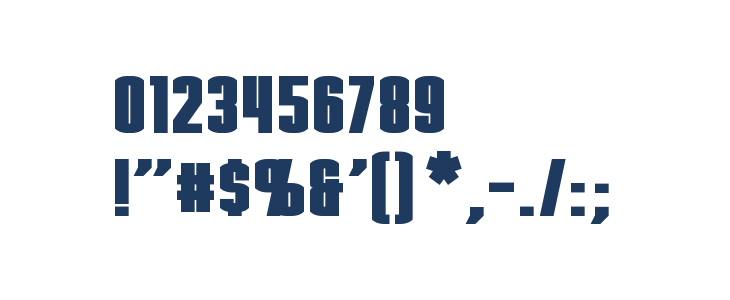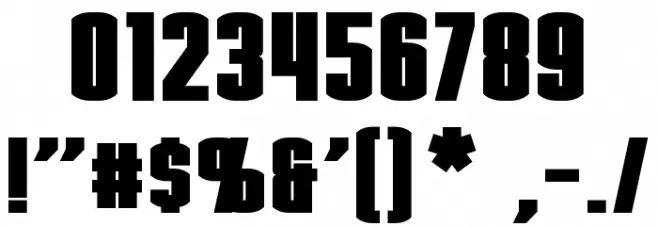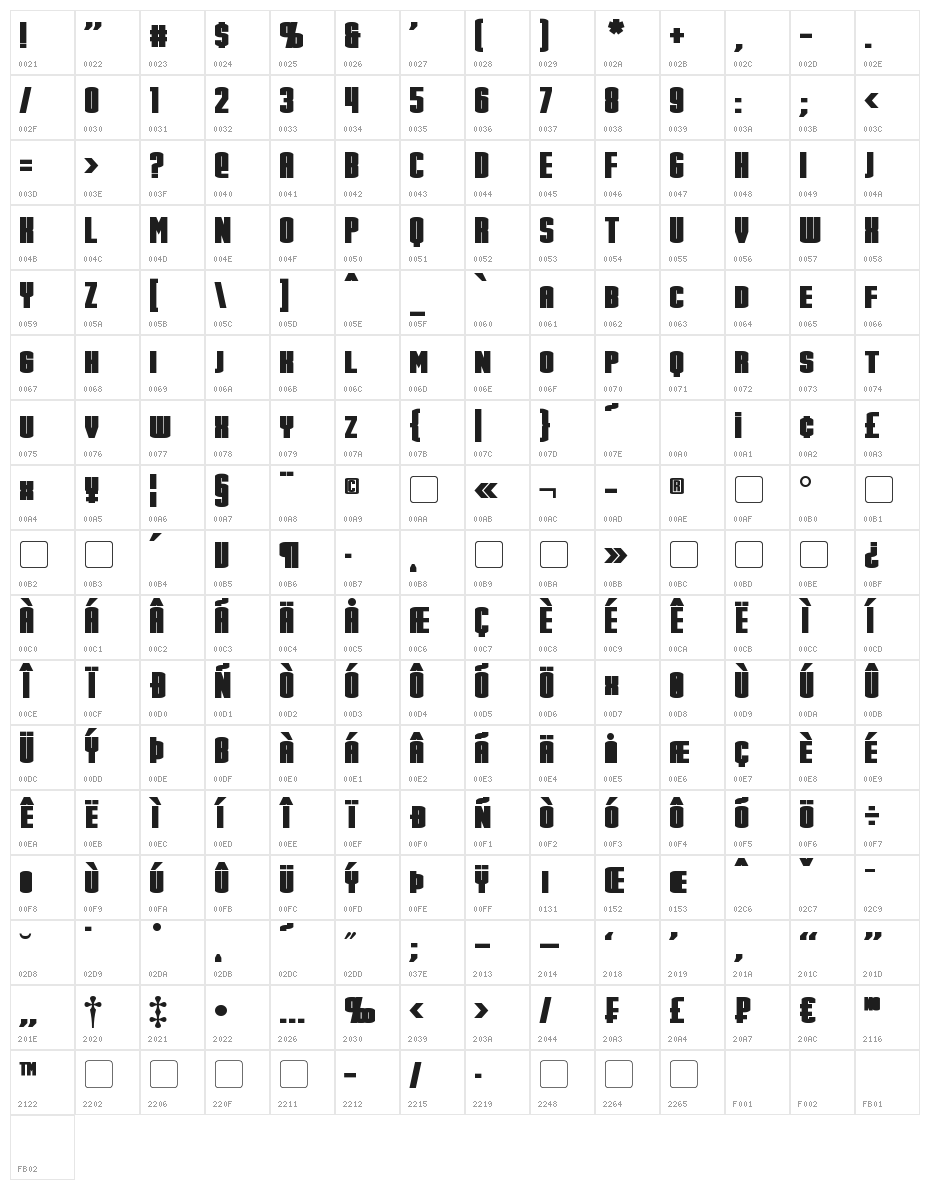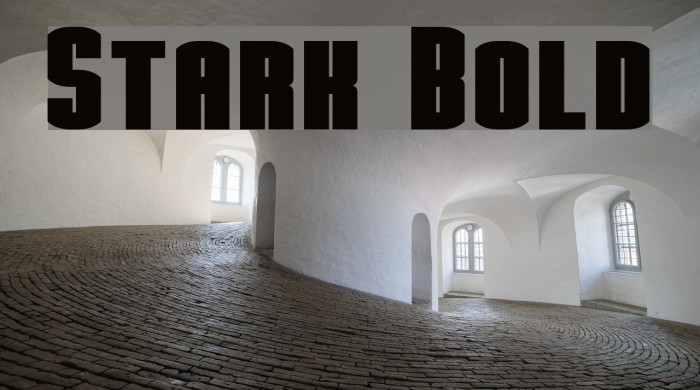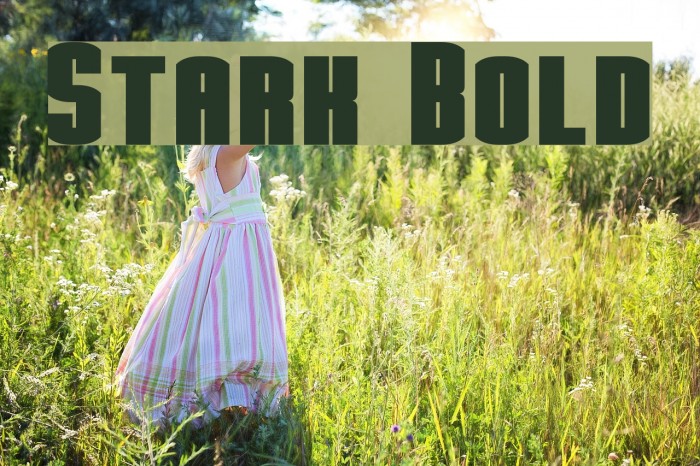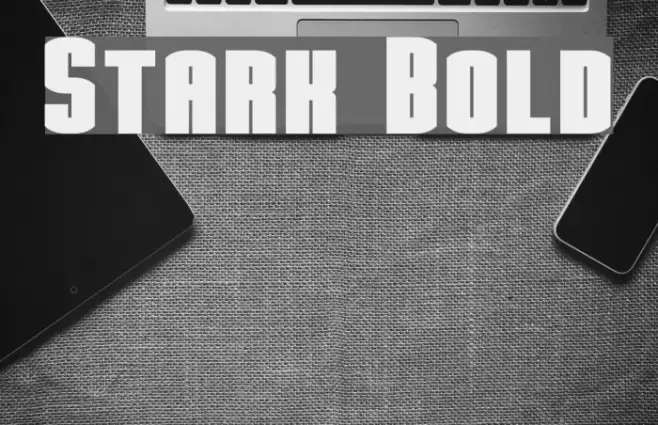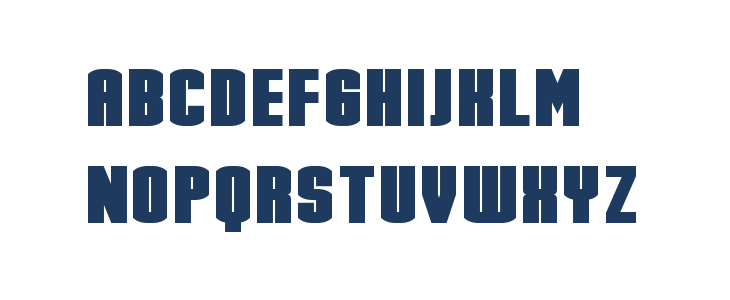
Stark Bold Font
Stark Bold Description
This font is characterized by its bold and impactful design, featuring thick, block-like letters that convey strength and authority. The uppercase and lowercase letters are designed with a uniform width, creating a cohesive and balanced appearance. The numbers and special characters maintain the same boldness, ensuring consistency across all elements. The font's geometric structure and clean lines make it highly legible, even at smaller sizes. Its strong presence makes it ideal for attention-grabbing headlines and titles. The overall style is modern and assertive, with a touch of industrial flair.